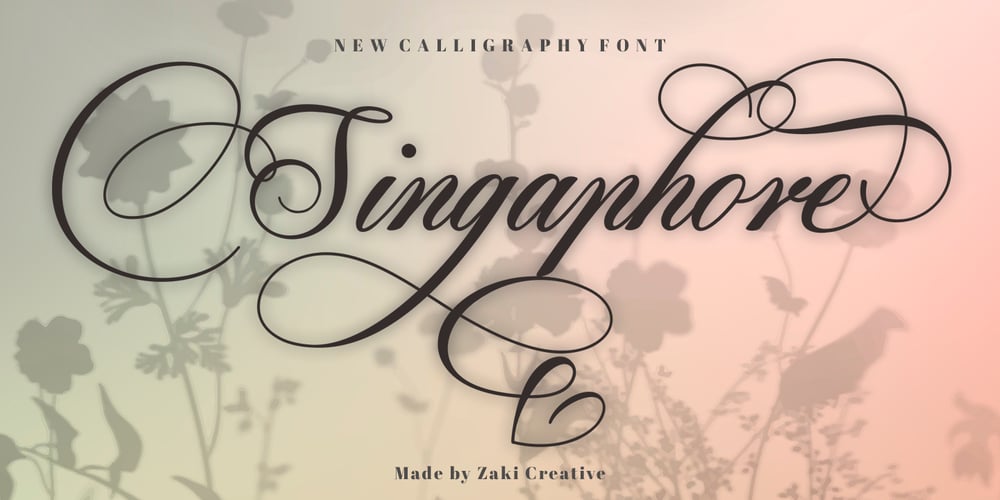
Singaphore
Singaphore font
Singaphore Font Family was designed by Teuku Muhammad Zaki and published by Zaki Creative. Singaphore contains 1 styles and family package options. Singaphore is Stylish calligraphy font, Singaphore made by hand with copperplate pen and opentype feature with pua encode, Singaphore calligraphy include alternative,stylistic set and swash, Every glyph lowercase have a stylistic style, Singaphore is perfect for branding, wedding invites and cards or quote.In order to use the beautiful swashes, you need a program that supports OpenType features such as Adobe Illustrator CS, Adobe Photoshop CC, Adobe Indesign and Corel Draw. The swashes are called alternative style. For example, letter “a” with ss.01 and ending swashes are alternative style for “a”. In order to access you need them you need to open Glyphs panel.